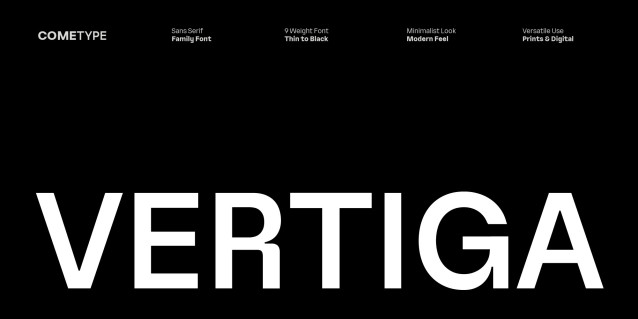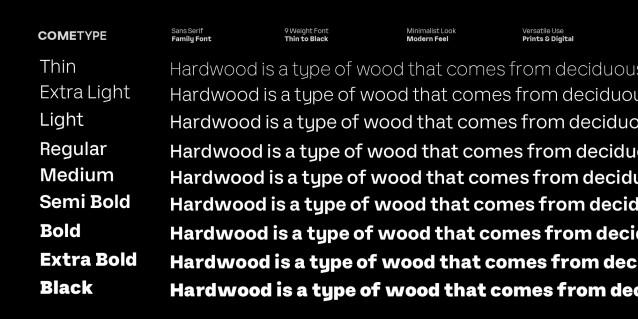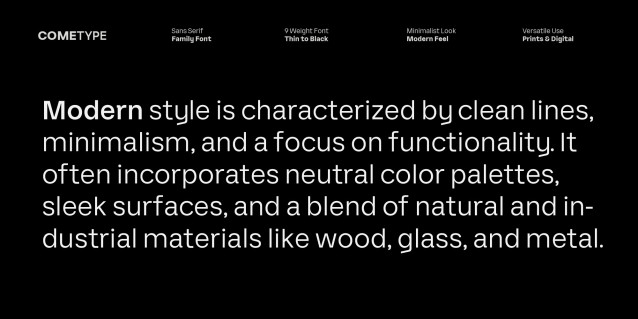
Vertiga Sans Font
Vertiga Sans is a versatile sans serif typeface designed for modern branding, editorial layouts, and digital interfaces. With 9 weights ranging from Thin to Black, it offers the perfect balance of elegance, readability, and functionality.
Features:
– 9 Weights: Thin, Extra Light, Light, Regular, Medium, Semi Bold, Bold, Extra Bold, Black
– Clean, modern, and professional design
– Uppercase & lowercase letters
– Multilingual support